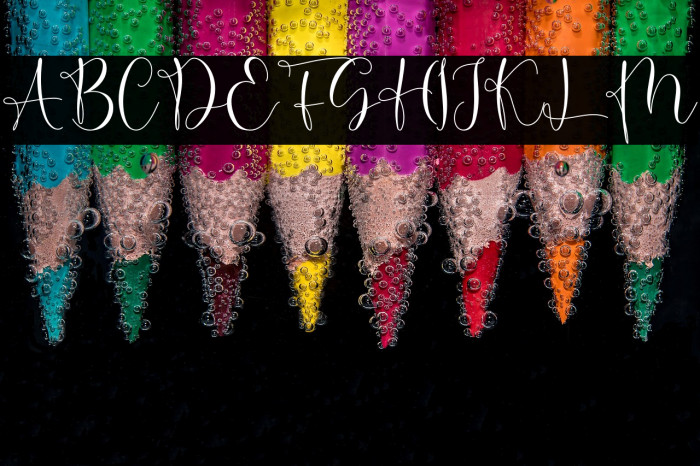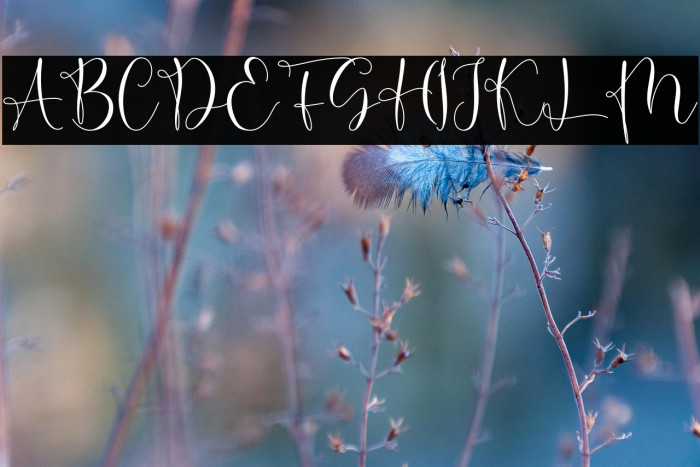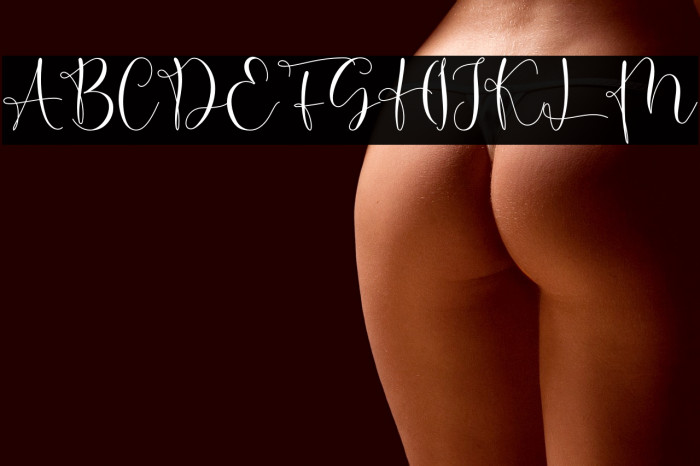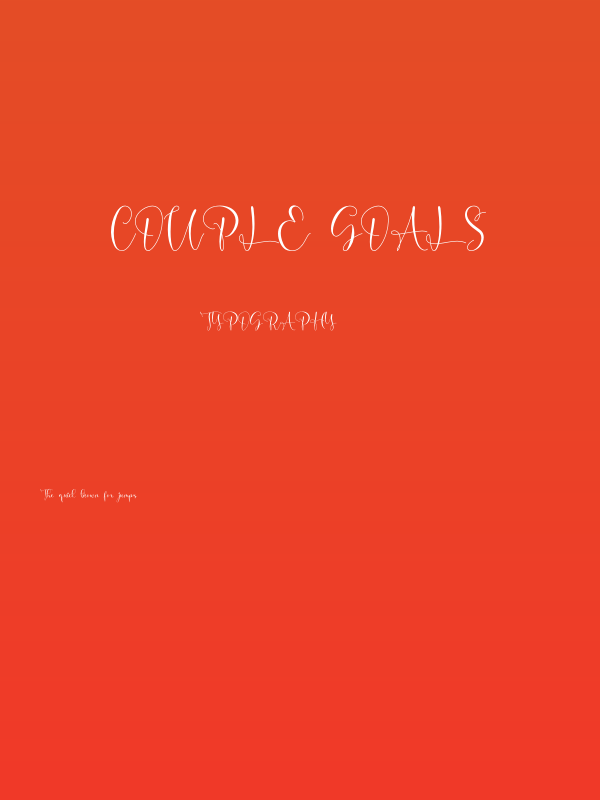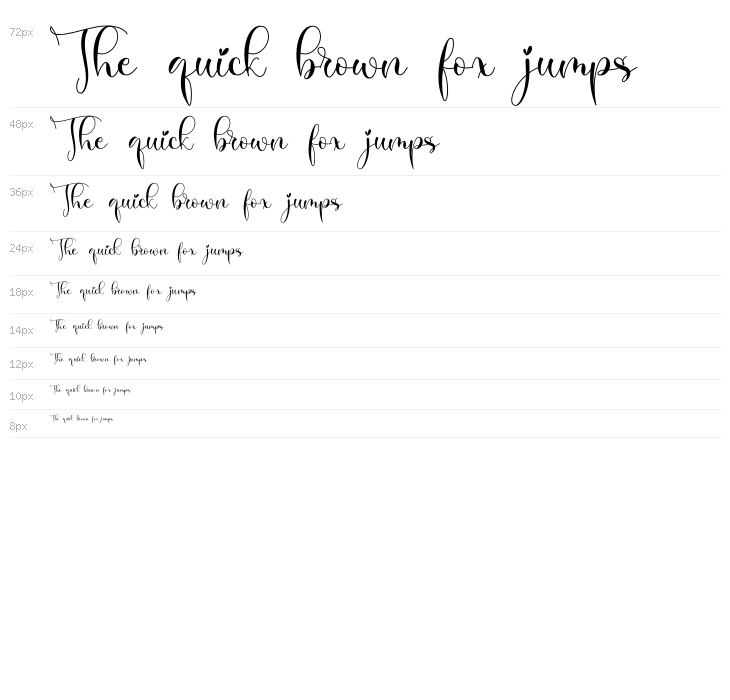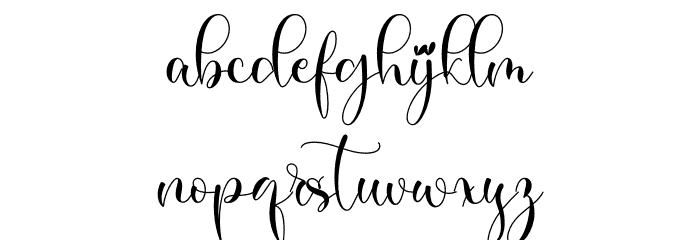
Couple Goals Font
Couple Goals Description
This font is a beautifully crafted script with an elegant and flowing style. The characters are interconnected with graceful loops and swirls, giving it a sophisticated and romantic feel. The uppercase letters are particularly ornate, with intricate details that enhance their visual appeal. The lowercase letters maintain a consistent style, complementing the uppercase with their own subtle flourishes. Numbers and special characters are designed to match the overall aesthetic, ensuring a cohesive look across all text. This font is perfect for creating a sense of elegance and charm in any design project.
| Proposed Projects | Ideal for wedding invitations, greeting cards, branding, and elegant logos. |